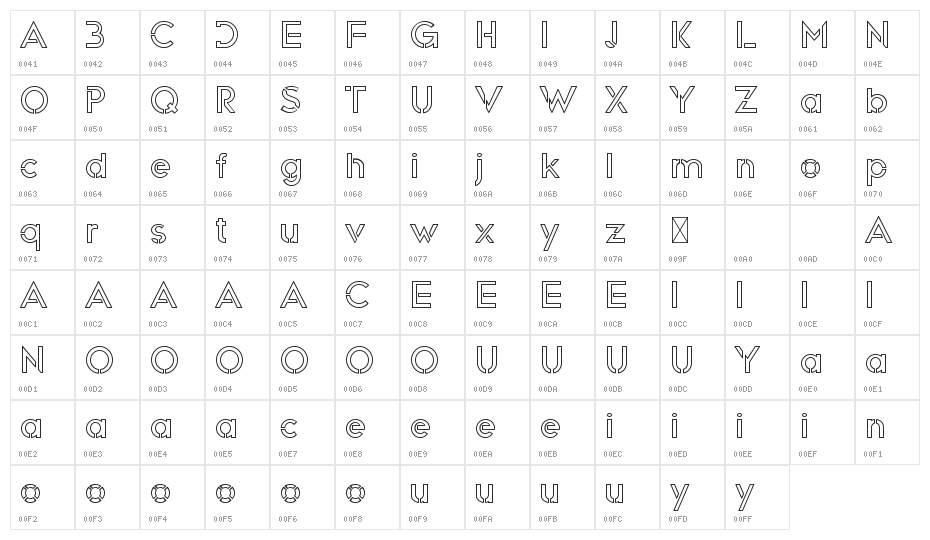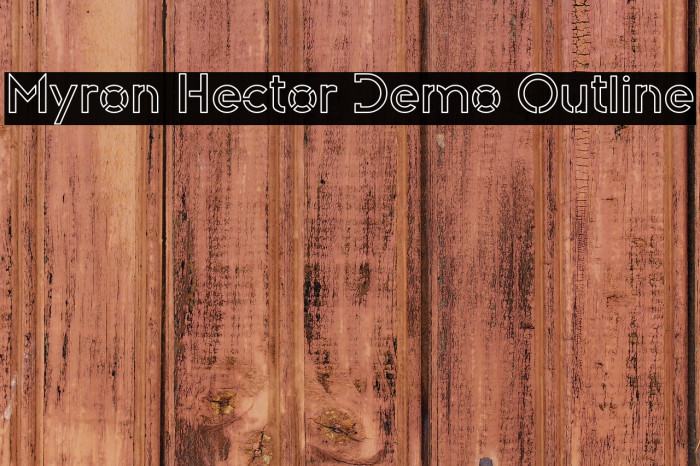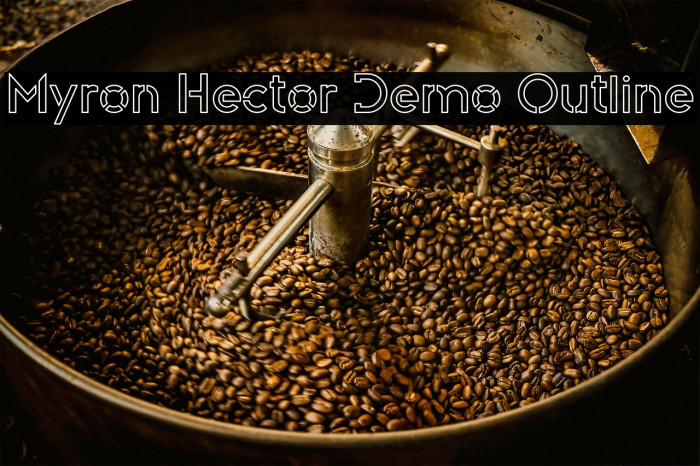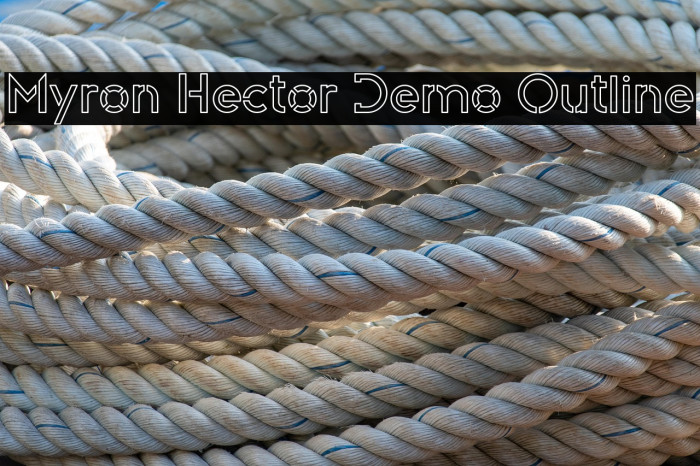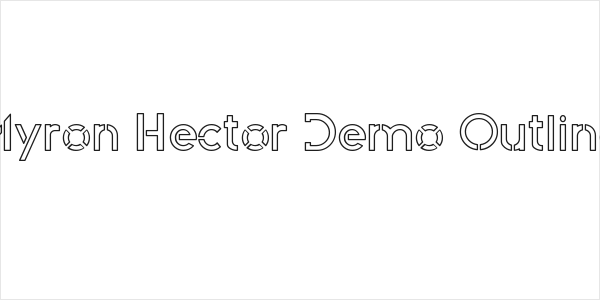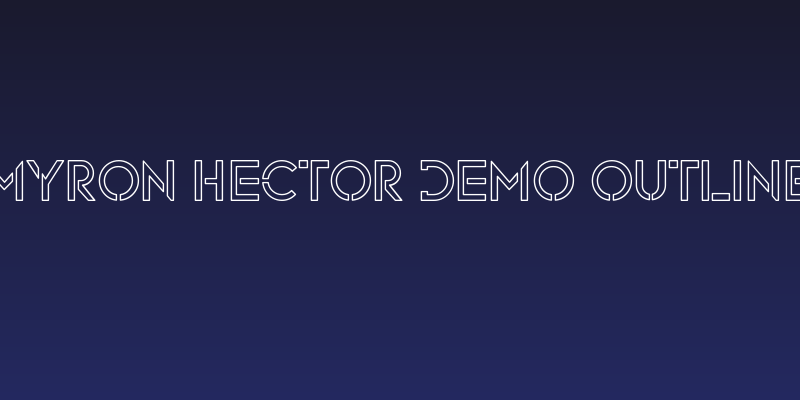
Myron Hector Demo Outline Font
Myron Hector Demo Outline Description
This font features a modern, geometric outline style with a bold presence. The uppercase and lowercase letters are crafted with precision, showcasing a blend of straight lines and curves that create a unique visual appeal. The characters are evenly spaced, providing a balanced and clean look. The font's outline design gives it a distinctive and contemporary feel, making it suitable for various creative projects. Its structured form and clear legibility make it ideal for headlines and titles, where a strong visual impact is desired. The font's style is both artistic and functional, offering versatility in design applications.